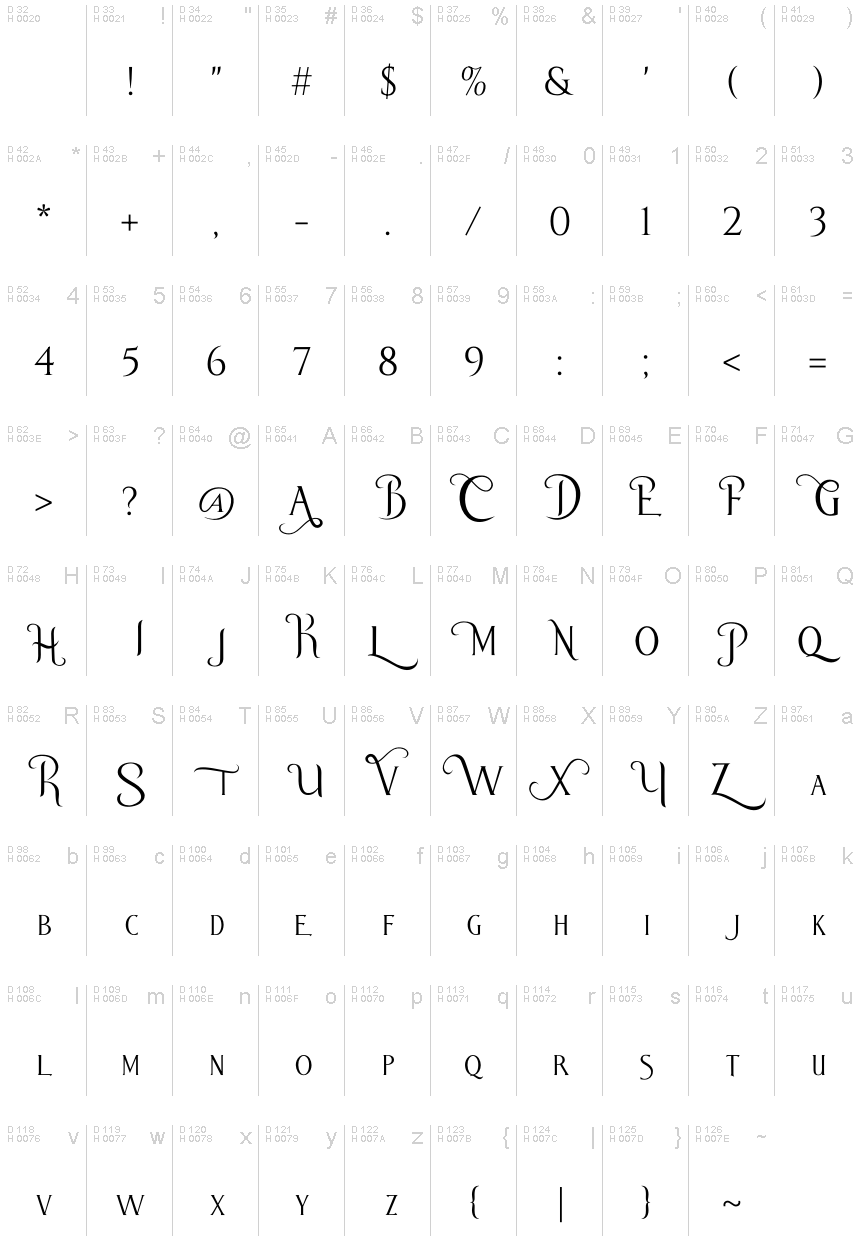
BeautyOfCinzel
Beauty of Cinzel, a collaborative creation by CaptAwesome and JoannaVu, emerges as a font that encapsulates elegance and historical charm. Its decorative style weaves together classic sensibilities with modern flair, making it a striking choice for display purposes. The font's sweeping curves and refined serifs convey a sense of sophistication, while its bold presence commands attention.
The versatility of Beauty of Cinzel lends itself to upscale branding, lavish event invitations, and any design space where the goal is to impart a touch of grandeur. Its aesthetic appeal lies in its ability to merge the traditional with the contemporary, making it an excellent candidate for projects that aim to leave an enduring impression.